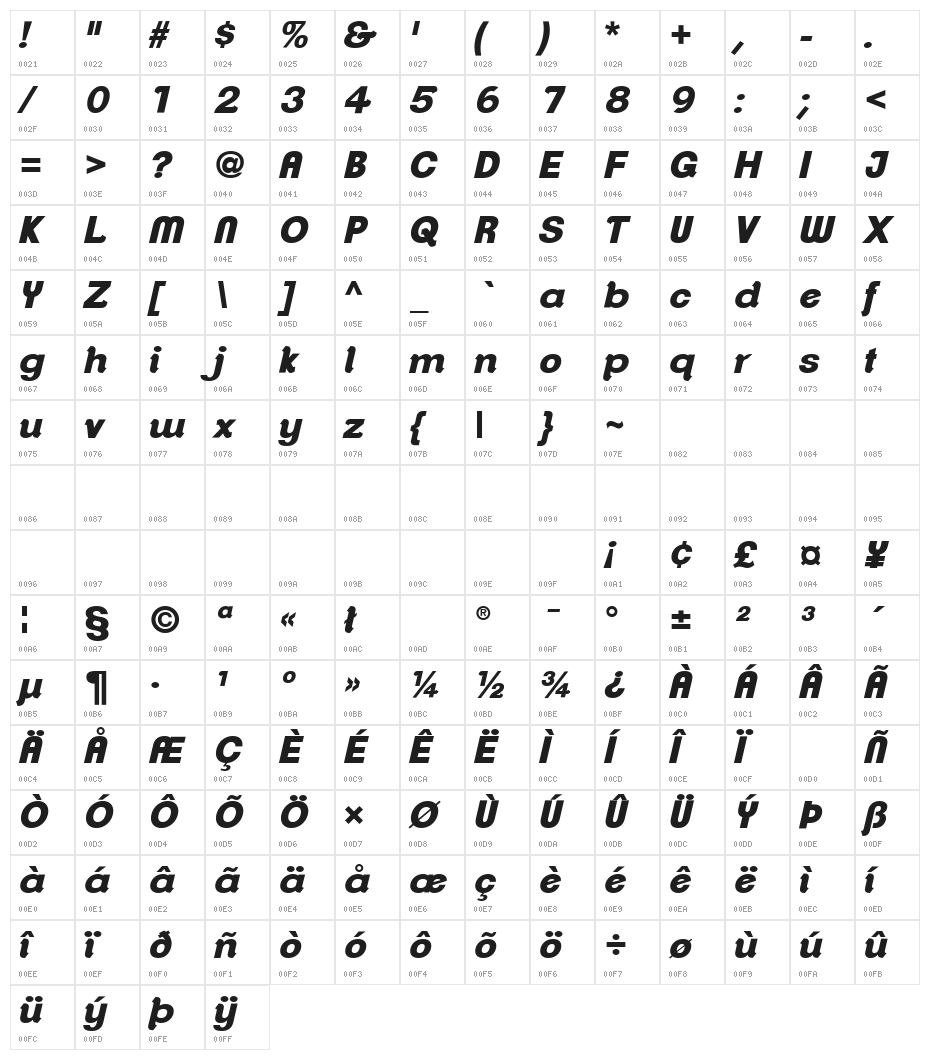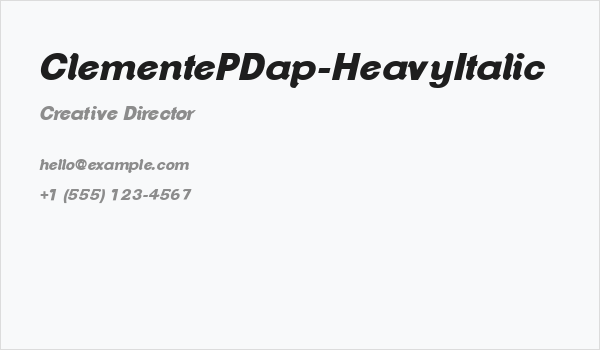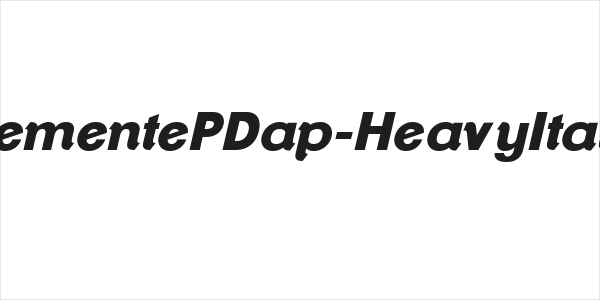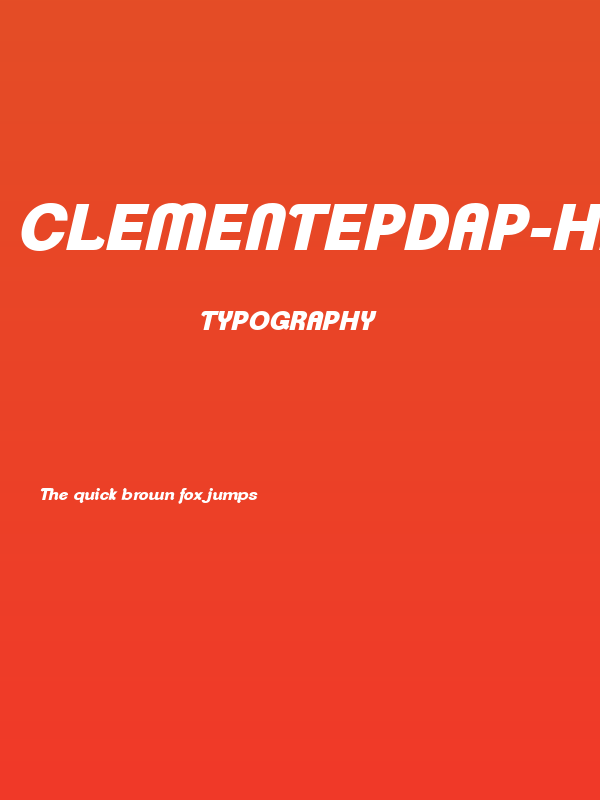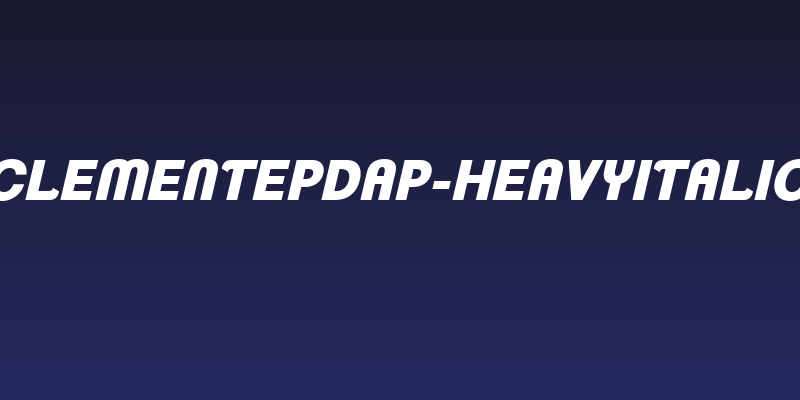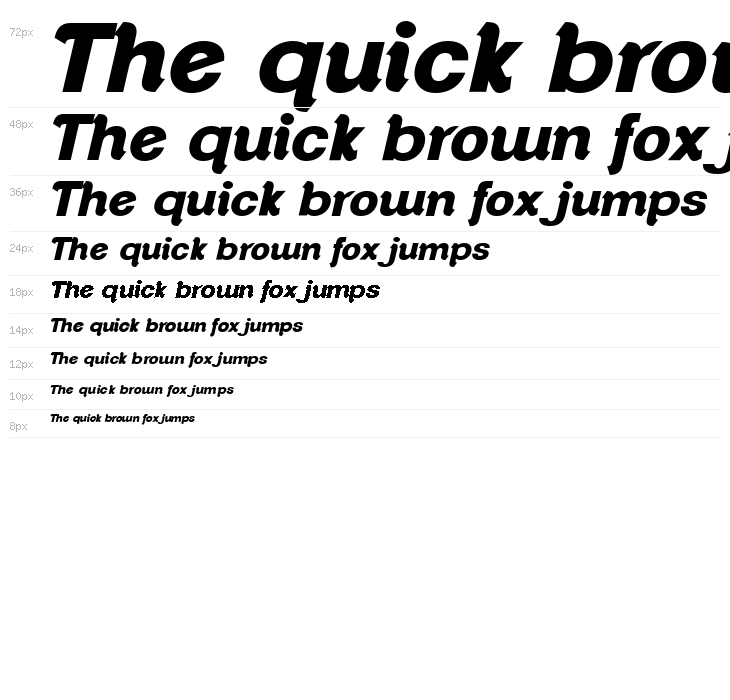
ClementePDap-HeavyItalic Font
ClementePDap-HeavyItalic Description
This font exhibits a bold and dynamic style, characterized by its heavy weight and italic slant. The letters are robust and convey a sense of strength and confidence. The rounded edges and smooth curves add a touch of friendliness, making it approachable despite its boldness. The uppercase and lowercase letters maintain a consistent style, ensuring readability and visual harmony. The numerals and special characters are designed to match the overall aesthetic, providing a cohesive look across all elements. This font is suitable for projects that require a strong visual impact while maintaining a modern and approachable feel.
| Use Case | Headlines, Logos, Advertising |
| Proposed Projects | Ideal for branding, advertising, headlines, and any design requiring a strong, impactful presence. |